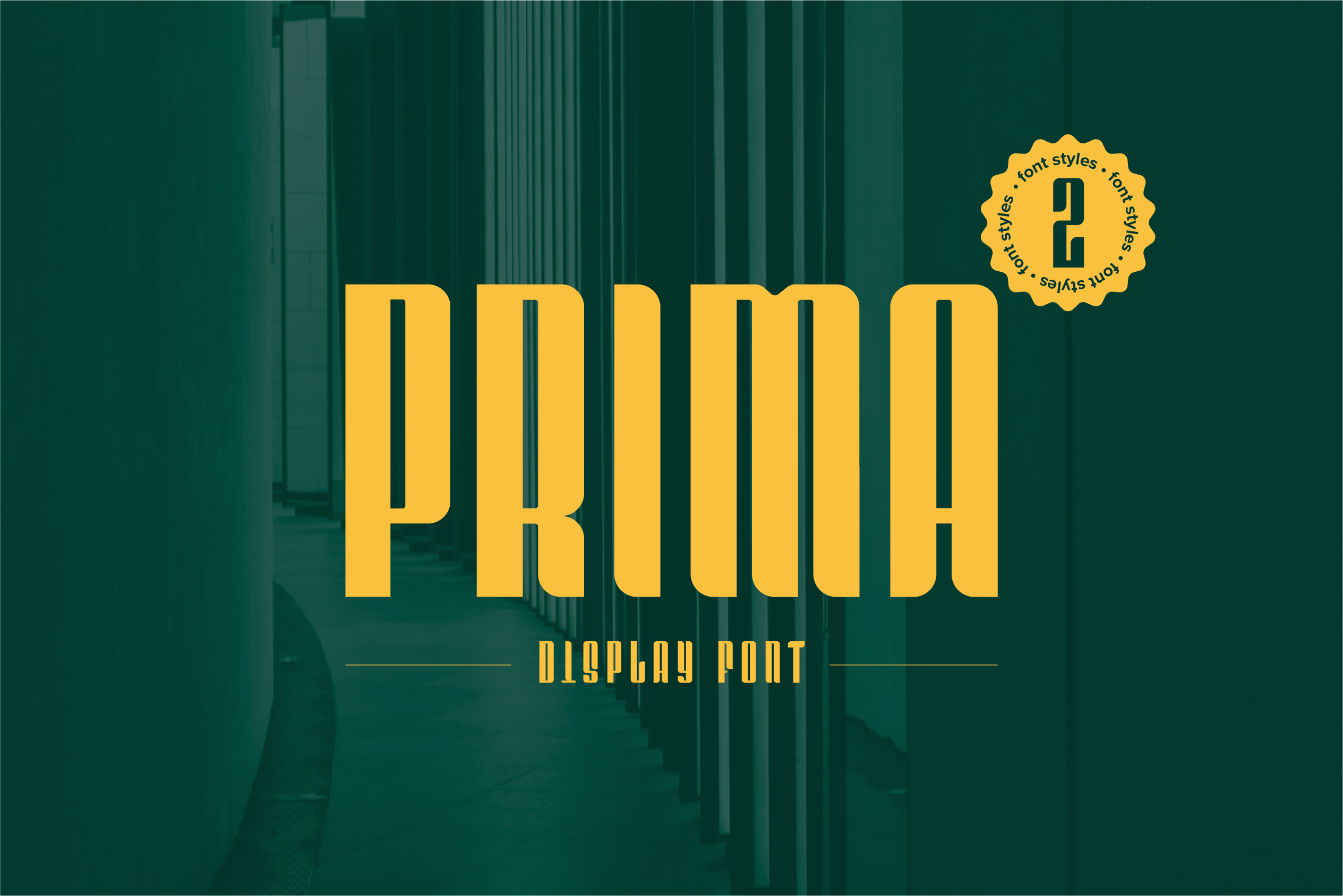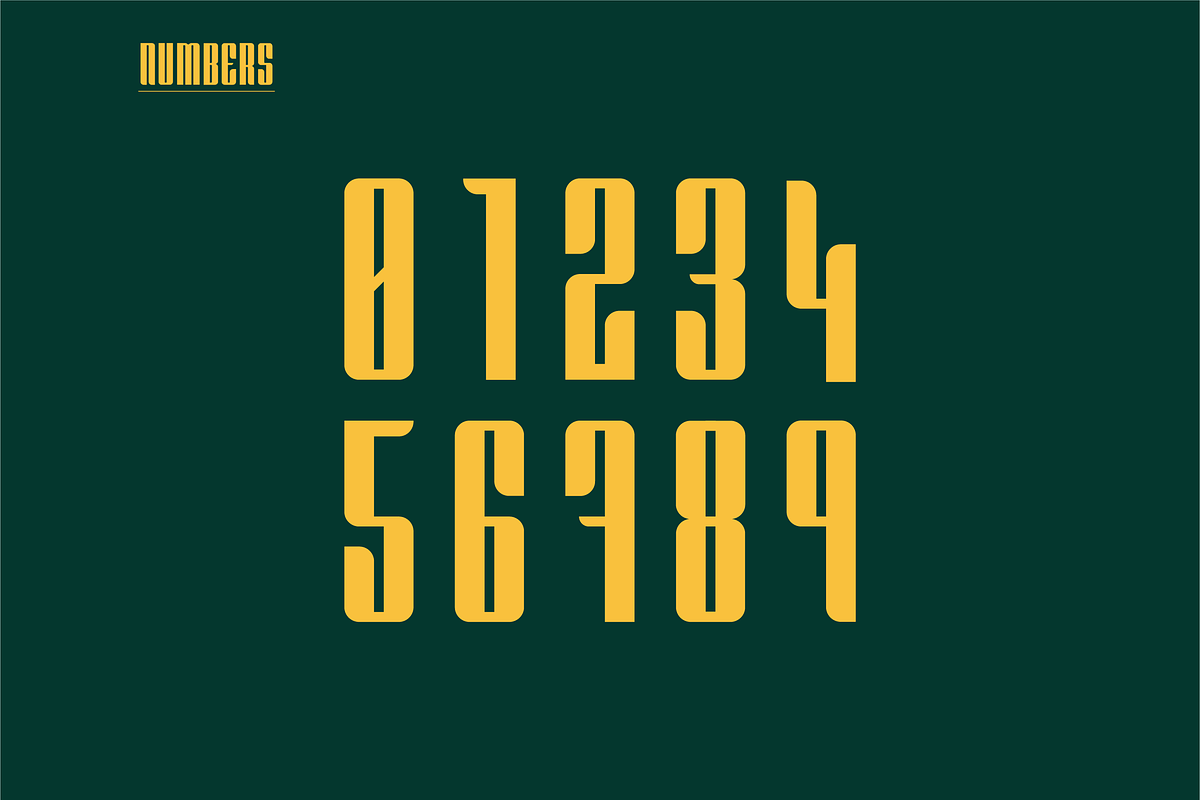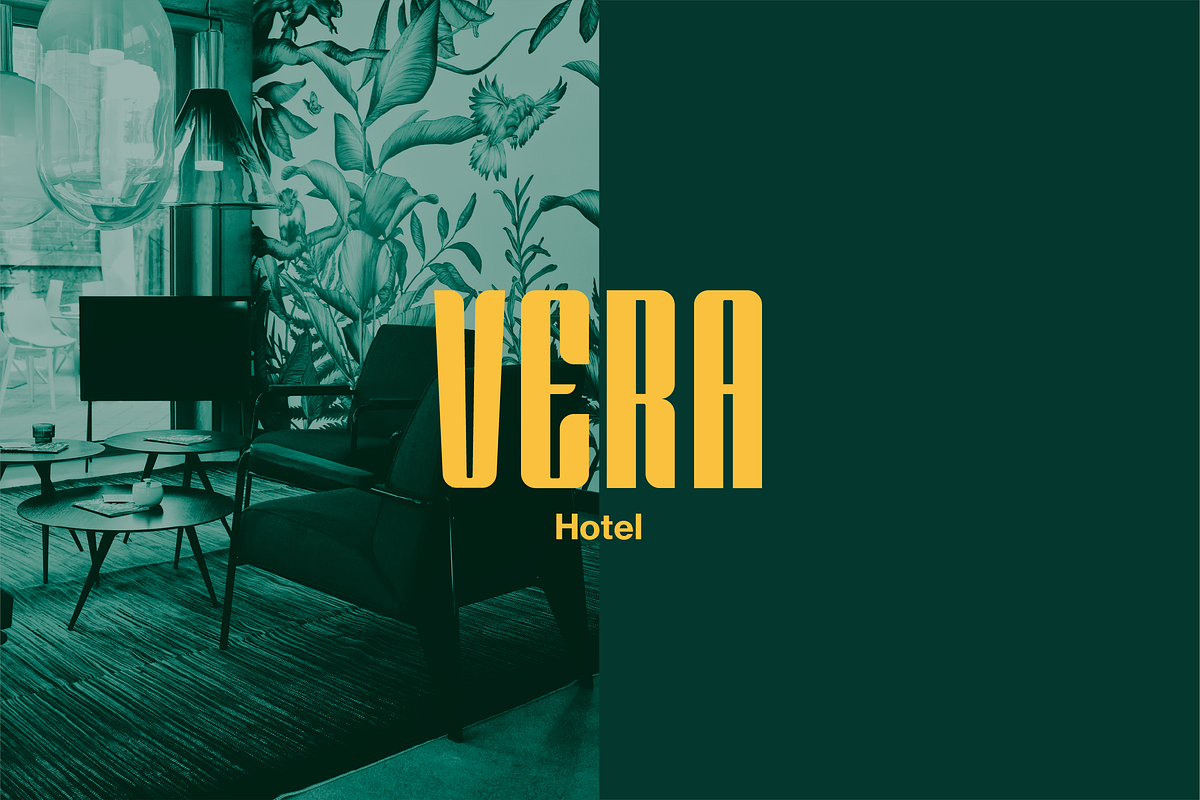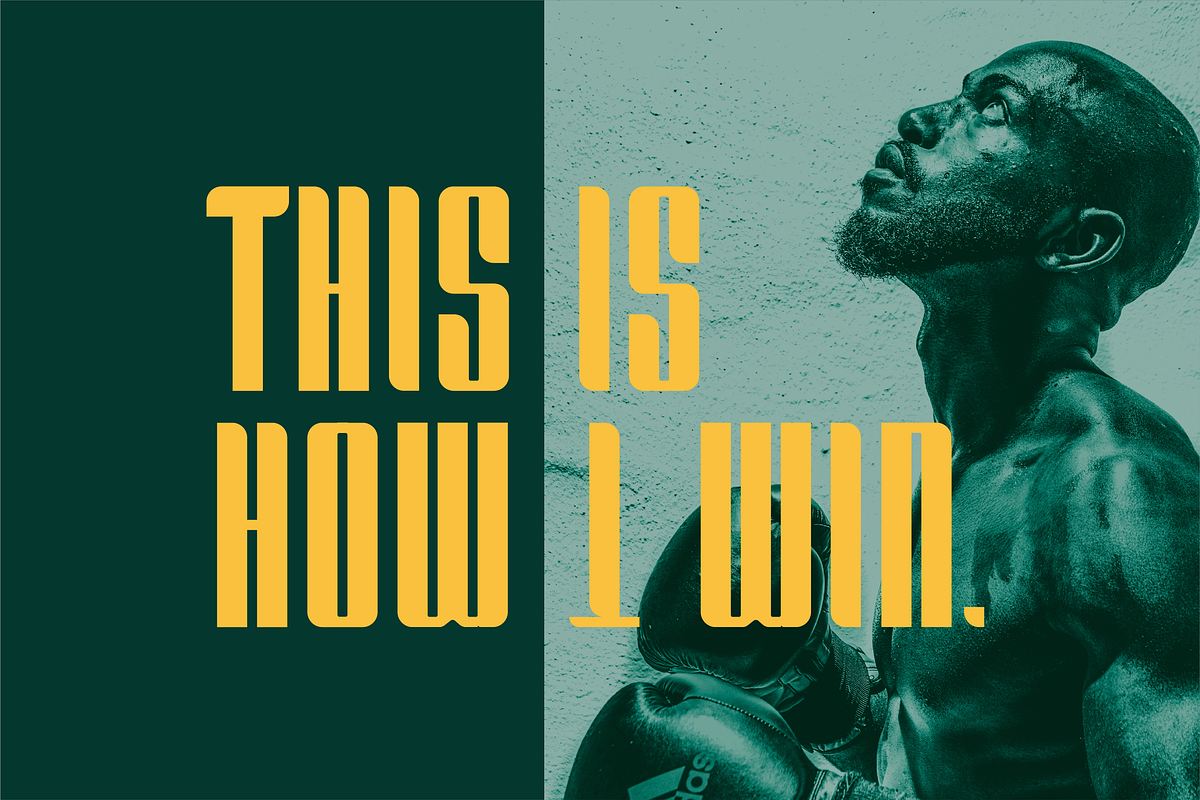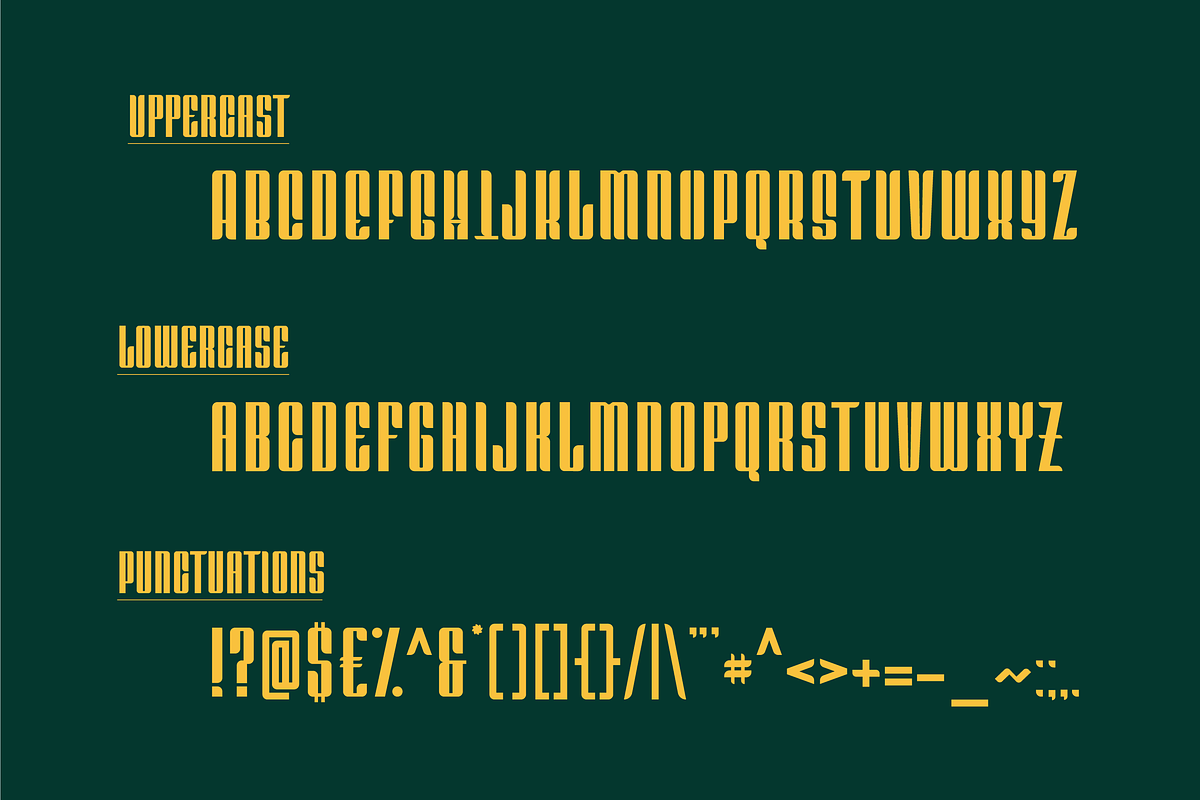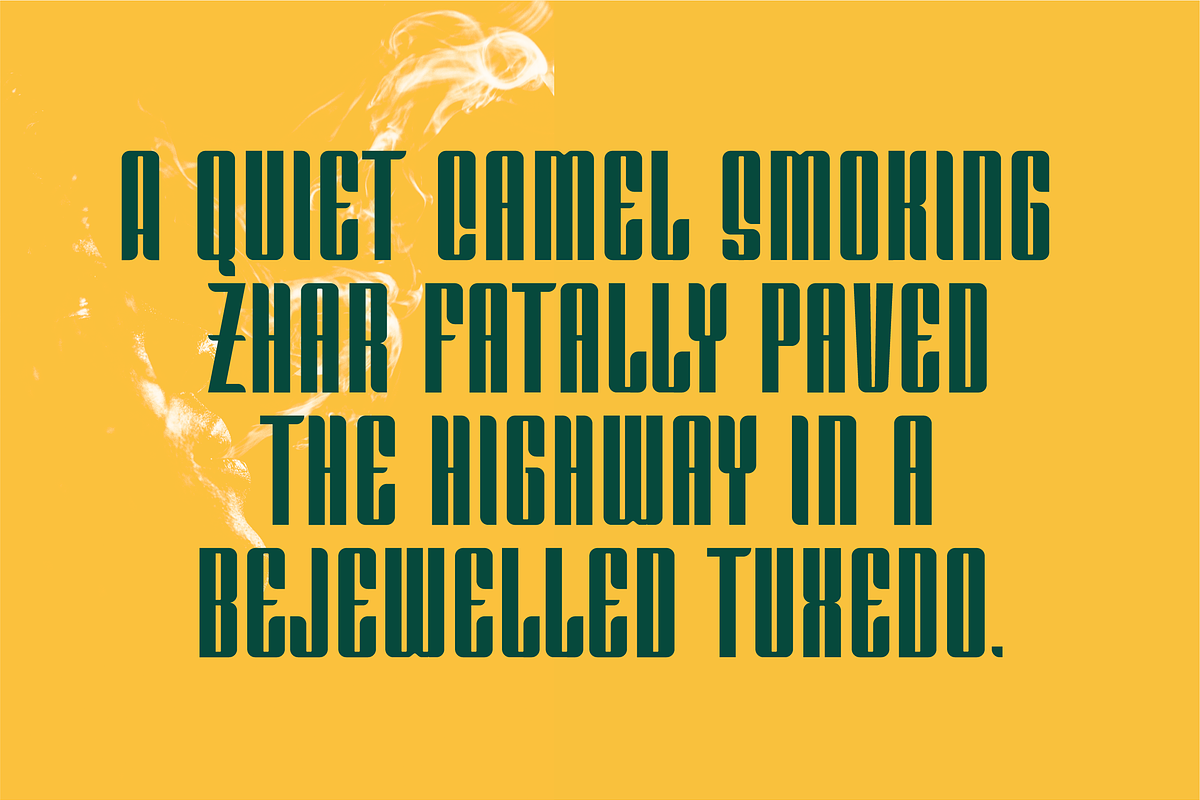
Prima | Display Font
PRIMA FONT - A 'Dual' Display Font
PRIMA FONT is a sans serif font inspired by geometric structures, calling back to the origins of early retro signage with a modern twist. It is most suited as a headline font for editorials, packaging design, branding and websites. It has an alternate display mode (switching between caps/lowercase), giving you more variaty as well as catering to a wide range of applications.
- Two Alternates (switch with caps on/off)